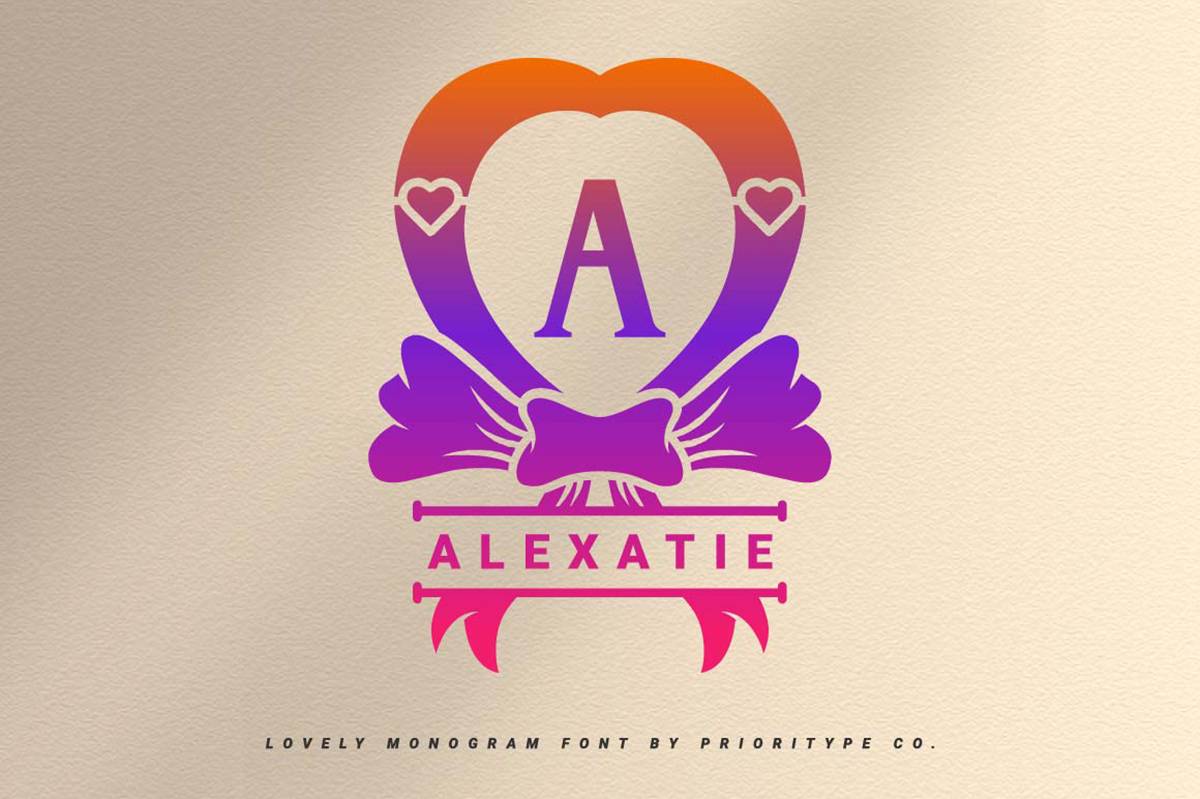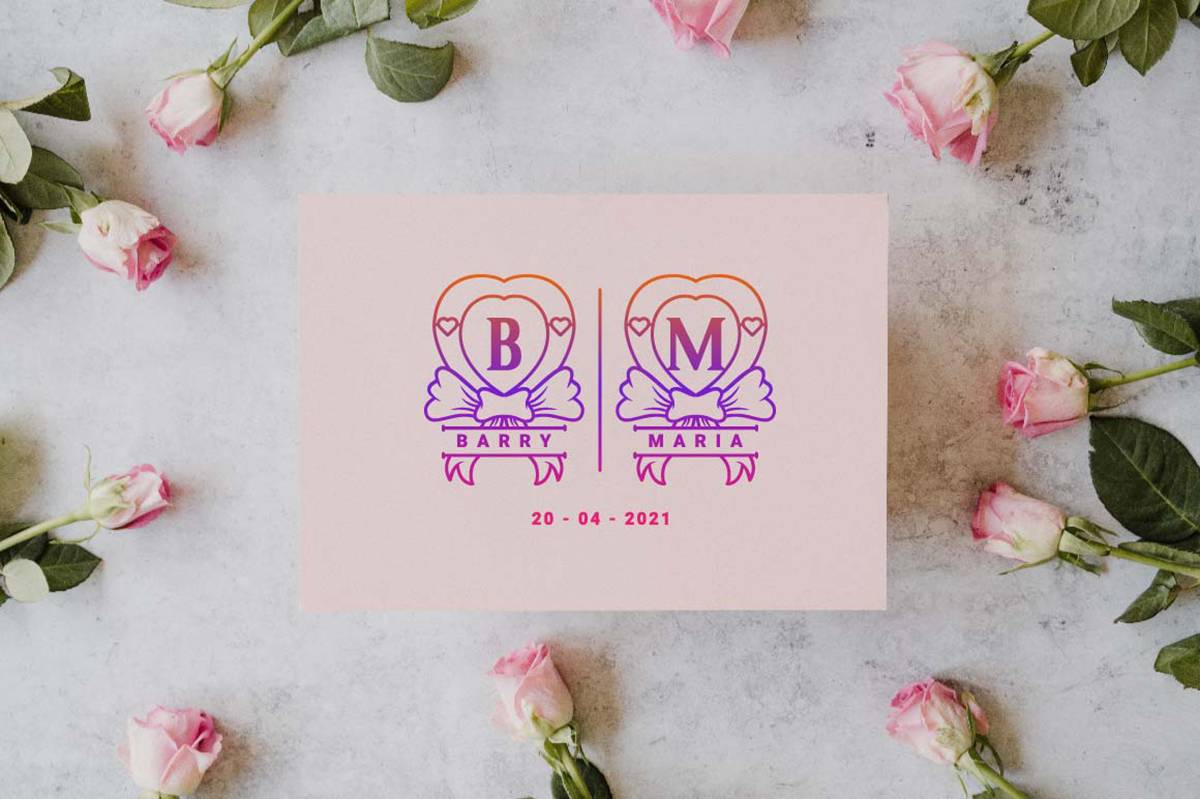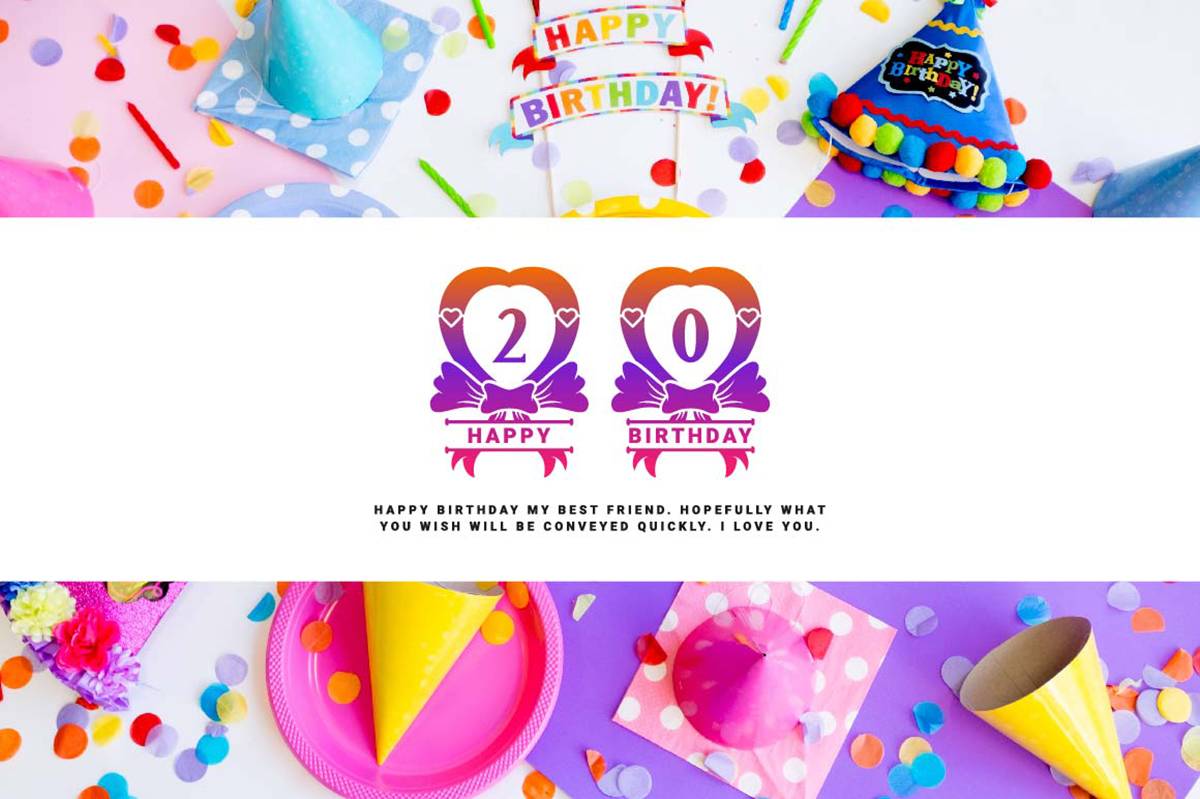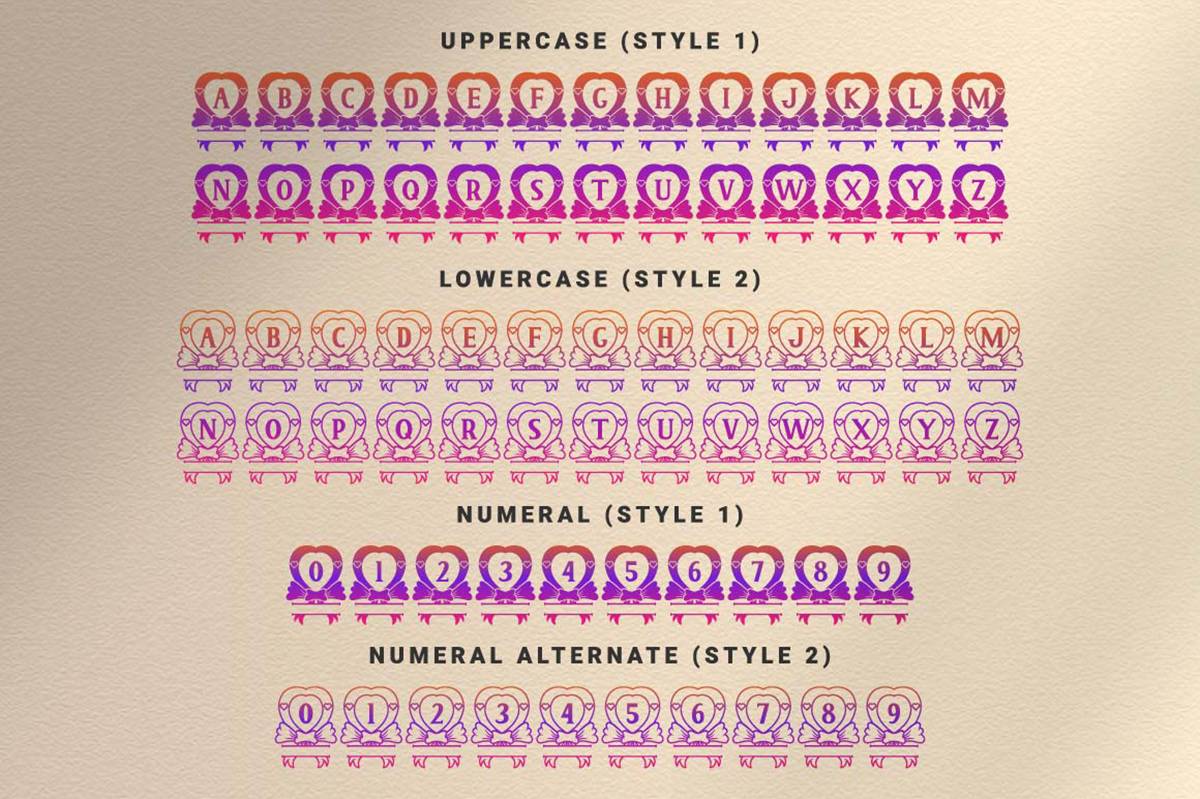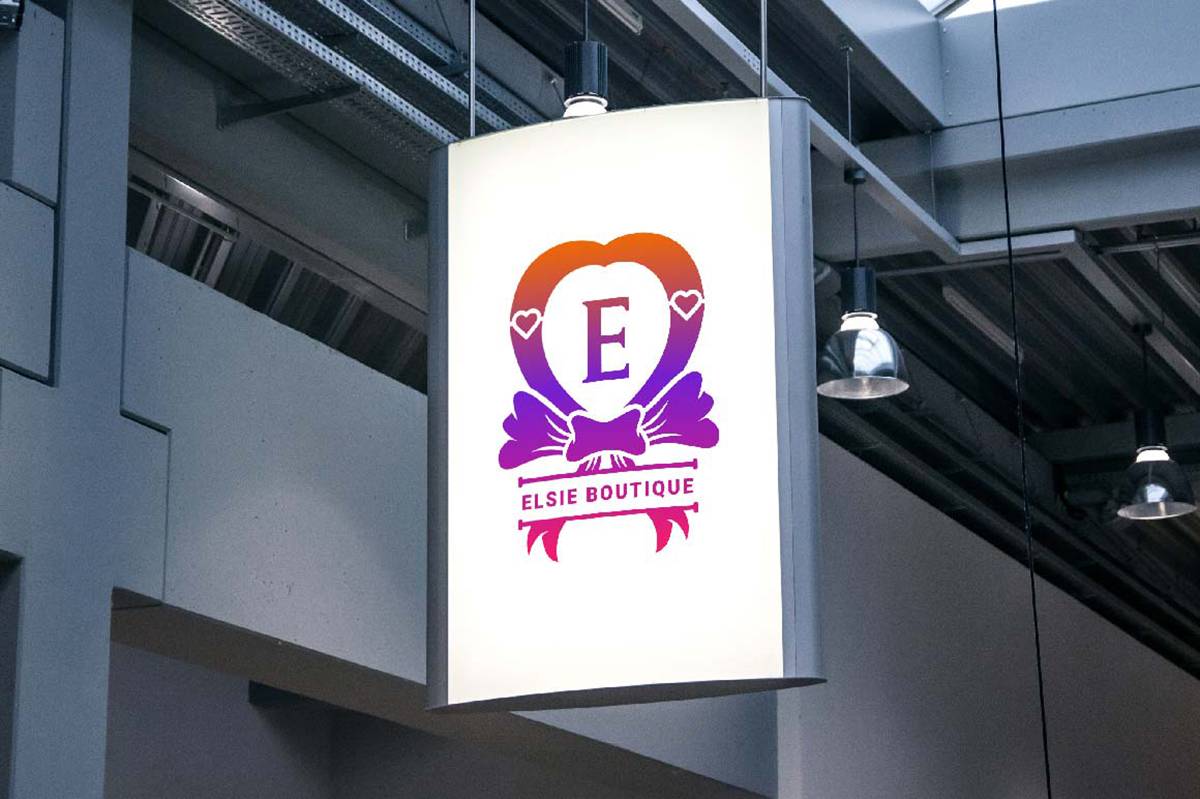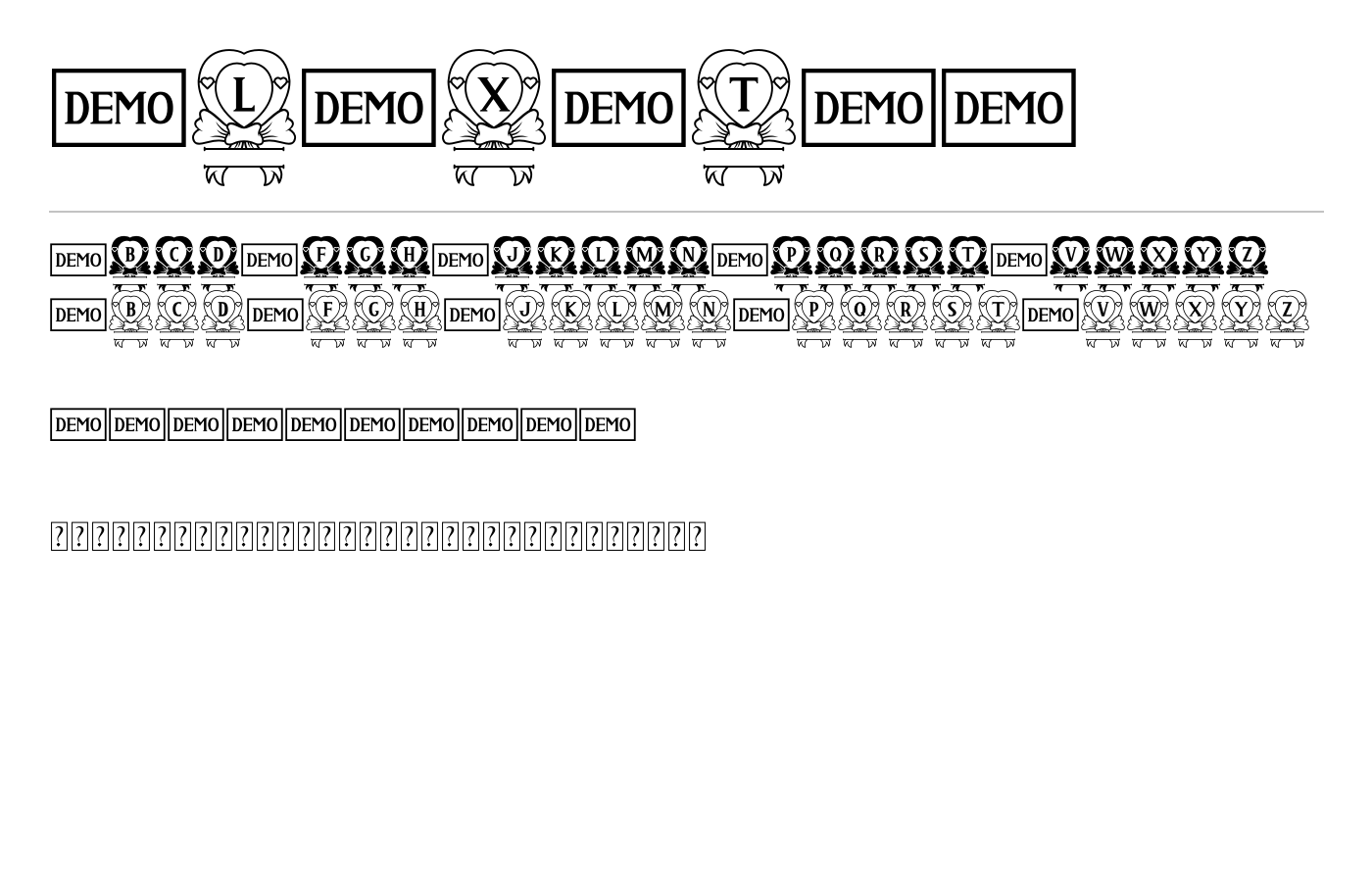
Alexatie Font is a decorative serif typeface featuring elegant, ornate letters framed within heart-shaped and ribbon motifs, giving it a romantic and vintage charm. Its bold serif characters paired with intricate embellishments make it ideal for invitations, logos, or branding that seeks a distinctive, playful, and luxurious feel. This font works best in display use where its unique style can shine and add a touch of classic sophistication.
Alexatie Font
About Alexatie Font
| Font family | Alexatie Font |
| Designer | Prio Nurokhim Aji |